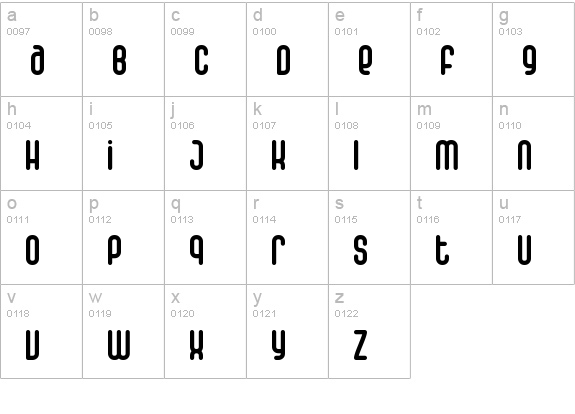
The False Positive Round BRK font is a modern and versatile typeface that combines sleek lines with a hint of playfulness. Its rounded edges give it a friendly and approachable feel, making it perfect for a wide range of design projects. Whether you're creating a logo, branding materials, or digital content, this font is sure to make a bold statement. What's even better is that the False Positive Round BRK font is completely free to download at FontsMarket.com. This means you can enhance your designs with this stylish font without any cost. Don't miss out on the opportunity to elevate your creative projects with the False Positive Round BRK font - download it today and let your creativity shine!